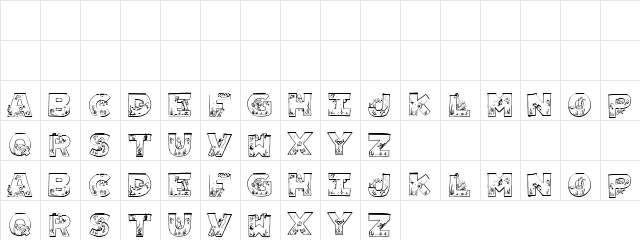
Aqua Minero Regular
Design Context for Aqua Minero Typeface
Aqua Minero is a composed and adaptable typeface that performs quietly and consistently across a wide range of design contexts.